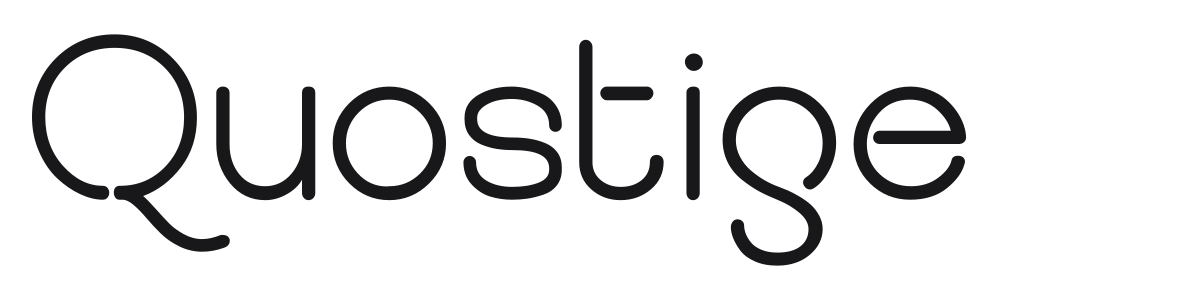
Quostige
Quostige is a geometric sans-serif built on near-perfect circles and monoweight strokes with softly rounded terminals throughout. The result sits somewhere between a strict geometric and a rounded sans, feeling clean without being cold. It carries a contemporary lightness that works well in branding, product packaging, and digital interfaces.